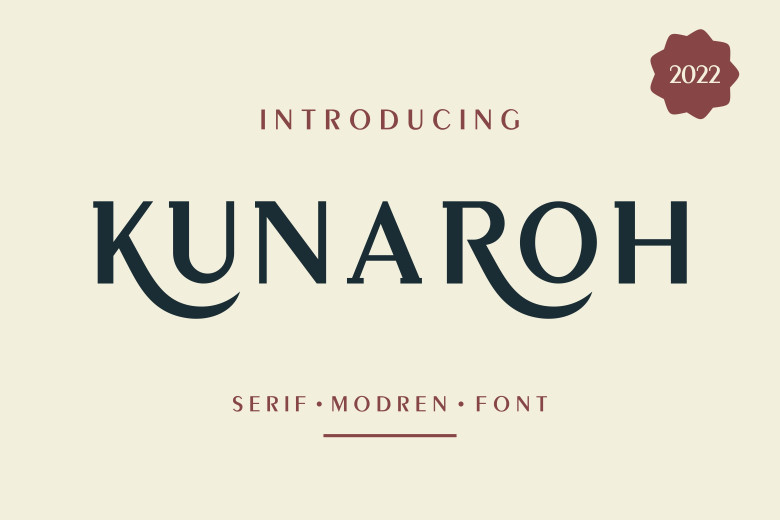
Kunaroh Font
Kunaroh is a modern serif font with a bold and authentic style. The font is suitable for any branding project like logo, t-shirt printing, sport, and more. It will look outstanding in wide range of applications.
Kunaroh Serif Font